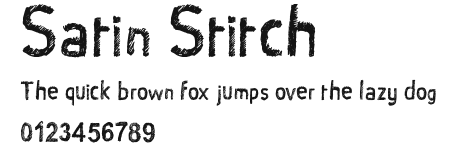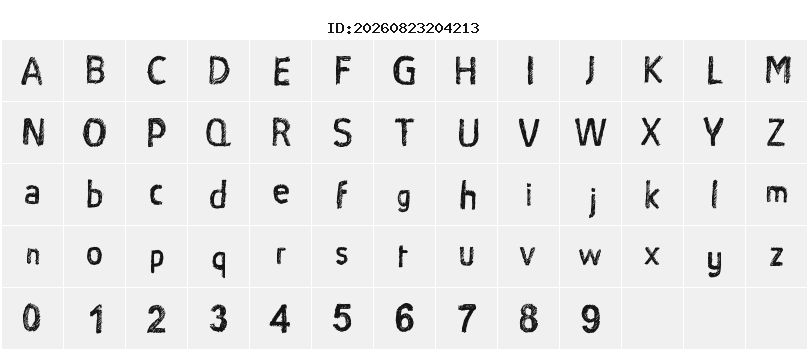
• Font Name: Satin Stitch
• Full Font Name: Satin Stitch Bold
About Satin Stitch.ttf
Satin Stitch.ttf is a modern, elegant sans-serif font designed for ultimate readability and visual harmony. Perfect for branding, headlines, web design, and print materials.